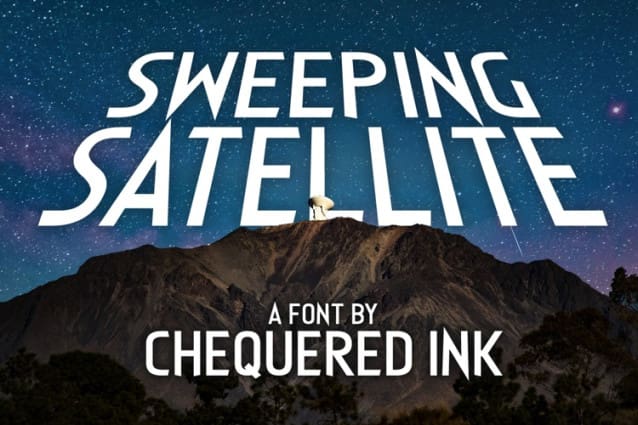
Sweeping Satellite Font
Sweeping Satellite Font a bold statement with our latest sans-serif font. With its clean lines and modern appeal, this font is sure to turn heads and leave a lasting impression. Perfect for headlines, logos, and any design that demands attention. It is both functional and stylish, making it a versatile choice for a wide range of design projects.